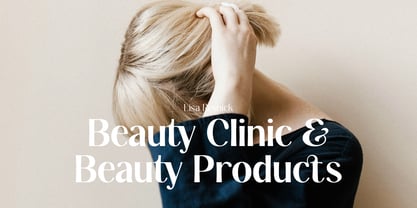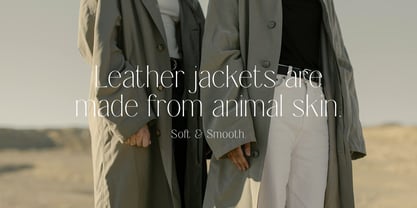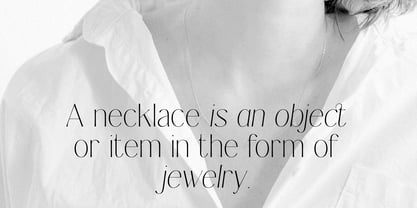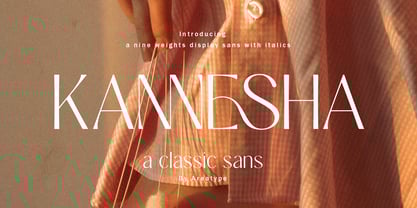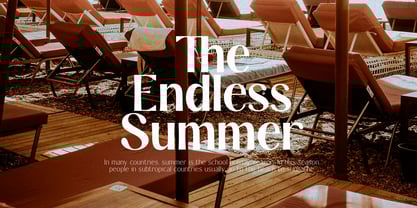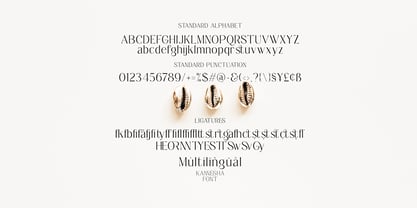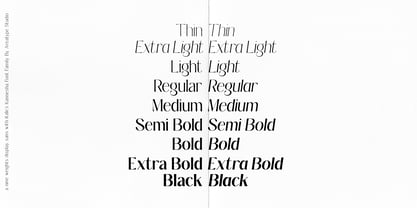
Kannesha
by Areatype
The Kannesha Font Family was designed by Ambia and published by Areatype. Kannesha contains 93 styles and family package options. More about this family
Kannesha Sans serif is a very versatile font. perfect for magazine images, to wedding invitations, to branding, poster design, and more.
Its strong presence and subtle details create a striking yet readable aesthetic across a wide range of creative applications.
upright and slant. From light to black styles. to add dynamic motion and emphasis to your typography.
Designers: Ambia
Foundry: Areatype